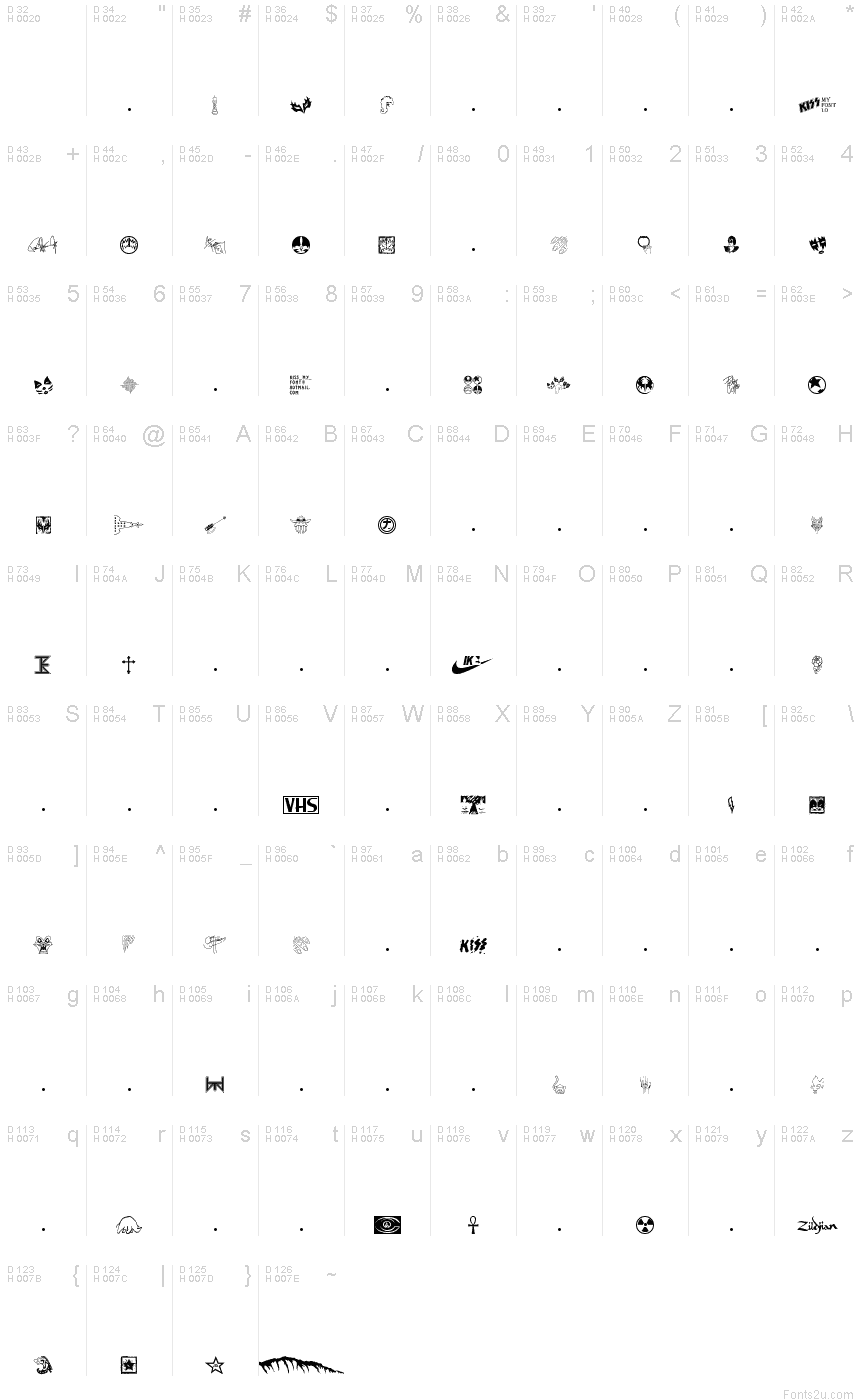
KISS My Font
KISS My Font font by KISS / W.I.R.E. is a free decorative dingbat typeface. Chunky, hard-edged forms with bold outlines and sharp inner cuts give every symbol the punch of a vintage rock logo-like it was stamped on vinyl sleeves and tour tees. The dots, slashes, and emblem-like characters feel tactile and inky, as if silkscreened onto a battered gig poster.
Using KISS My Font, you can drop ready‑made icons into band logos, zines, flyers, merch graphics, social posts, and fan art without drawing a thing. This free font shines on loud titles and badges; pair its symbols with a simple sans serif set small for supporting text so the gritty shapes stay center stage.